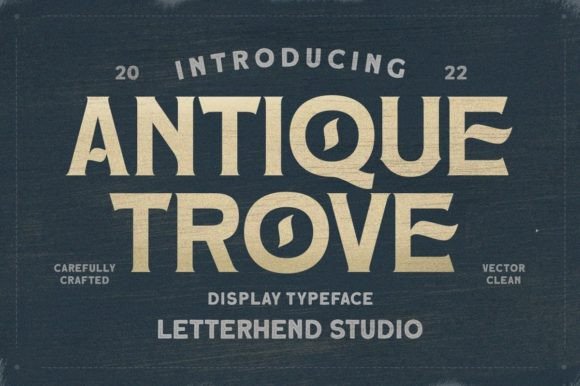
Uncover the Charm of Antique Trove Font: A Timeless Classic for Your Designs
In the realm of typography, few fonts manage to evoke the essence of nostalgia and classic elegance as effectively as the Antique Trove Font. This vintage-style display font has been making waves in the design community for its strong, confident, and dynamic appearance, allowing designers to infuse their projects with a sense of history and character. In this comprehensive guide, we’ll delve into the world of Antique Trove, exploring its origins, features, and the myriad ways it can elevate your designs.
The Essence of Antique Trove Font
Antique Trove is more than just a font; it’s a statement piece. Its classic, vintage-style design reads as strong, confident, and dynamic, making it an ideal choice for designers looking to add a touch of nostalgia to their work. The font’s unique character is reminiscent of bygone eras, evoking memories of antique shops, vintage posters, and classic literature.
One of the standout features of Antique Trove is its versatility. Whether you’re working on a branding project, a website, or a print design, this font can adapt to various styles and themes. Its bold and confident appearance makes it perfect for headlines, titles, and any text that needs to grab attention.
Origins and Inspiration
While the specific origins of Antique Trove Font might not be well-documented, it’s clear that its design draws heavily from traditional typography. The font’s creators aimed to capture the essence of classic display fonts from the early 20th century, with a modern twist that makes it relevant for contemporary design projects.
The inspiration behind Antique Trove can be seen in its intricate details and robust structure. Each letter is crafted to convey a sense of solidity and reliability, making it suitable for designs that require a strong visual presence.
Key Features of Antique Trove Font
- Classic and Vintage Appeal: Antique Trove boasts a timeless design that instantly adds a vintage flair to any project.
- Strong and Confident: The font’s bold appearance makes it perfect for headlines and titles that need to stand out.
- Dynamic and Versatile: Despite its classic look, Antique Trove can be used in a variety of design contexts, from digital to print.
- Nostalgic Character: The font’s unique character can evoke a sense of nostalgia, making it ideal for projects that aim to capture a retro vibe.
Using Antique Trove in Your Designs
Here are a few tips for making the most of Antique Trove:
- Pair it with Modern Fonts: Combine Antique Trove with contemporary fonts to create a striking contrast that adds depth to your design.
- Use it for Headlines: The font’s bold nature makes it perfect for headlines and titles. Use it sparingly to maximize its impact.
- Experiment with Colors: Antique Trove can look great in various colors. Experiment with different hues to find the one that best suits your design.
The Benefits of Using Antique Trove
Choosing Antique Trove for your design projects comes with several benefits:
- Unique Aesthetic: The font’s vintage style can set your designs apart from more generic or modern fonts.
- Emotional Connection: The nostalgic appeal of Antique Trove can help create an emotional connection with your audience.
- Versatility: Its adaptability to different design contexts makes it a valuable addition to your font library.
Antique Trove Font is a classic, vintage-style display font that can add tons of nostalgic character to your designs. Its strong, confident, and dynamic appearance makes it an excellent choice for designers looking to evoke a sense of history and elegance. By incorporating Antique Trove into your projects, you can create visually stunning designs that stand out and resonate with your audience.
Whether you’re a seasoned designer or just starting out, Antique Trove is a valuable addition to your typographic arsenal. Its timeless appeal and versatility ensure that it will remain a popular choice for years to come.